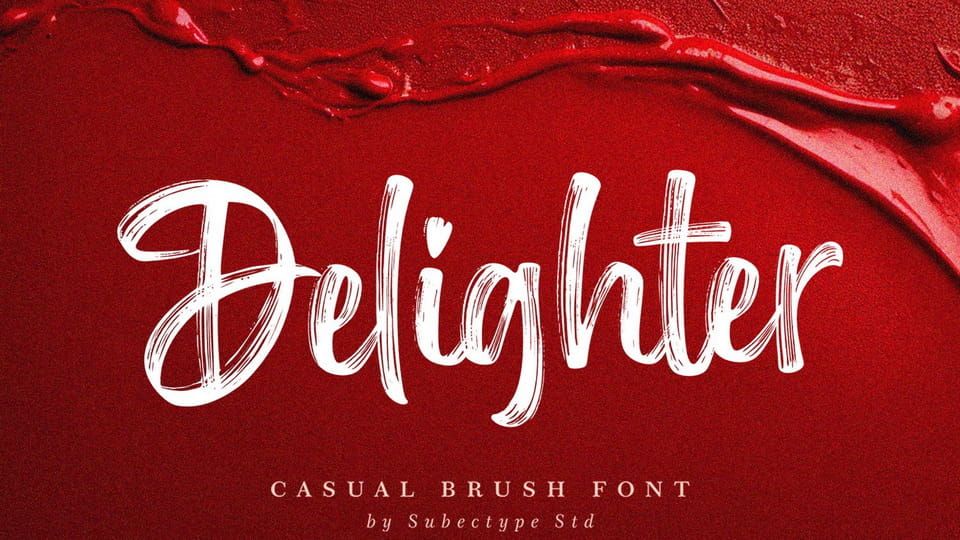
Download Delighter font, a handwritten brush script typeface. This font imparts a casual and natural appearance brush style. This font can convey a range of moods, from relaxed and friendly to artistic and eccentric.
Designer: Subectype